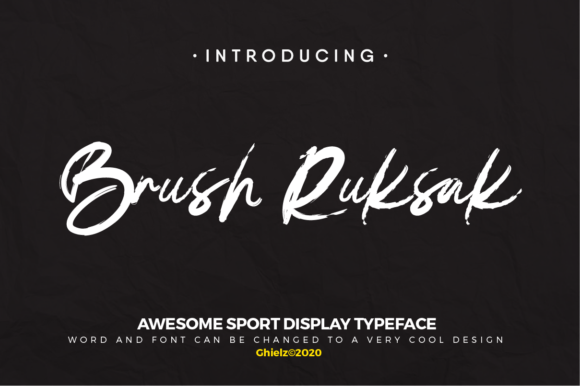
The Designer’s Delight: Brush Ruksak Font
I’ll never forget the time I was working on a project for a client who wanted a font that was both elegant and playful. I had spent hours scouring the internet for the perfect match, but nothing seemed quite right. That was until I stumbled upon Brush Ruksak Font. It was love at first sight! 💕
With its sweet and flowing handwritten style, Brush Ruksak Font features a varying baseline, rough lines, gorgeous glyphs, and stunning alternates. It maintains its classy calligraphic influences while feeling contemporary and fresh. In this article, I’ll share my experience with Brush Ruksak Font, its features, and how to make the most of it in your designs.
- ✨ The unique blend of elegance and playfulness
- 💫 Stunning alternates and ligatures for added creativity
- 🎨 Perfect for a variety of design projects, from branding to invitations
While Brush Ruksak Font is an amazing addition to any design project, there are a few things to keep in mind:
- ⚠️ Some users may find the font a bit too ornate for certain projects
- 🤔 Limited use on smaller font sizes, as details may get lost
The Story Behind Brush Ruksak Font
Brush Ruksak Font was created with the intention of capturing the essence of elegant handwriting. The designer aimed to create a font that was both sophisticated and approachable, perfect for a wide range of design projects. With its unique blend of classic and modern elements, Brush Ruksak Font is sure to delight designers and crafters alike.
Q: Is Brush Ruksak Font suitable for body text?
A: While Brush Ruksak Font is beautiful, it’s best suited for headlines, titles, and short paragraphs. Its ornate nature may make it difficult to read in large blocks of text.